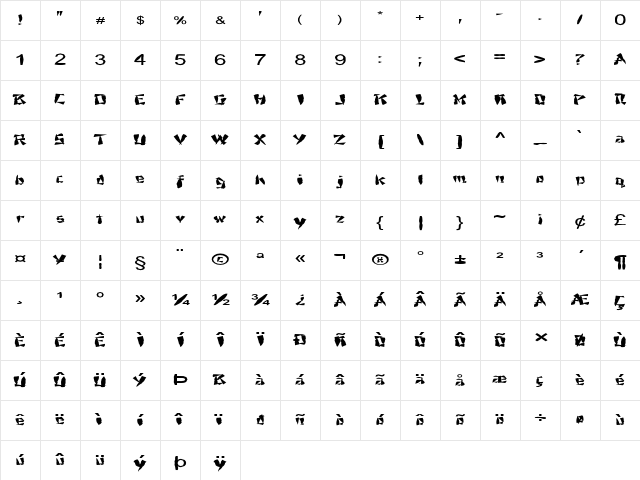
FZ UNIQUE 21 MANGLED EX Normal Free Font
FZ UNIQUE 21 MANGLED EX Normal
Complete FZ UNIQUE 21 MANGLED EX Normal glyph index. Displaying only characters natively supported by FZ UNIQUE 21 MANGLED EX Normal font.
Design Context for FZ UNIQUE 21 MANGLED EX
FZ UNIQUE 21 MANGLED EX is a composed and adaptable typeface that performs quietly and consistently across a wide range of design contexts.